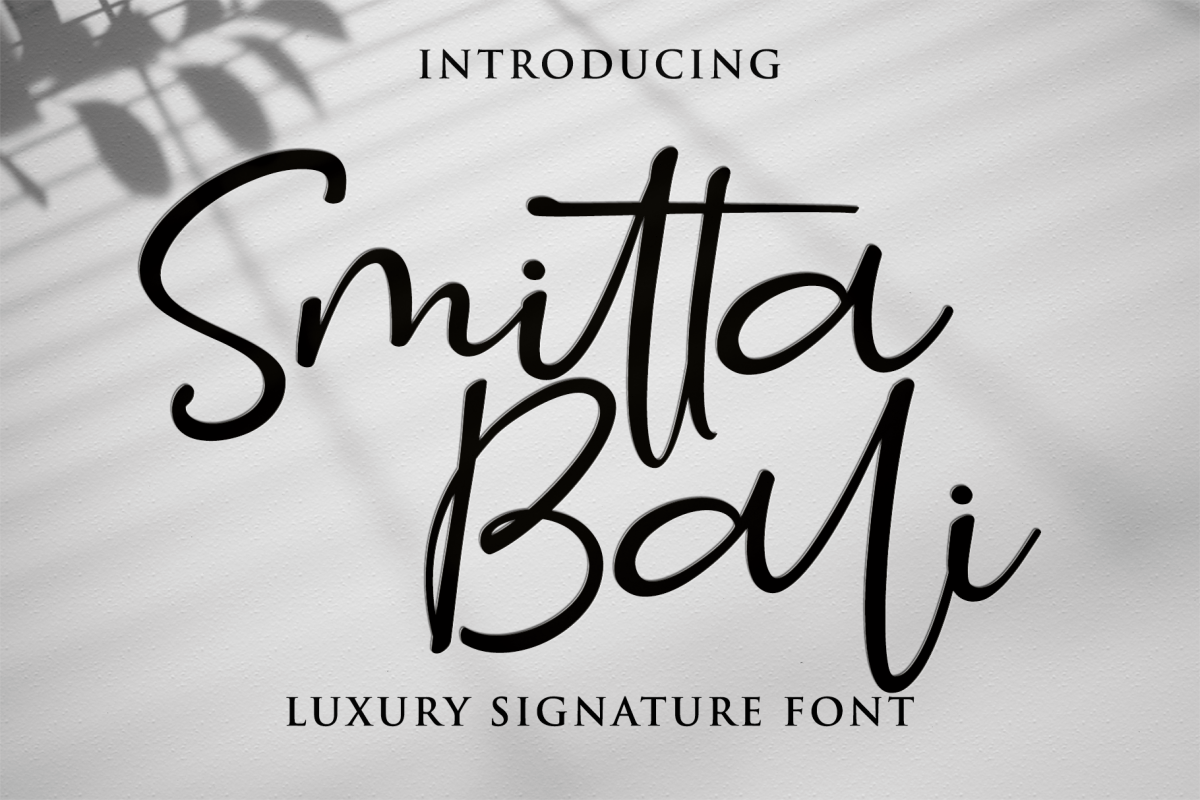
Introducing, Smitta Bali. Amazing hand lettering look attractive and natural! Every single letters have been carefully crafted to make your text looks beautiful. This font is suitable for invitation, branding, advertising, classic design, poster design etc. Font is PUA encoded so you can access extras from character map in most design software.
Ligature Character
Multilingual Support